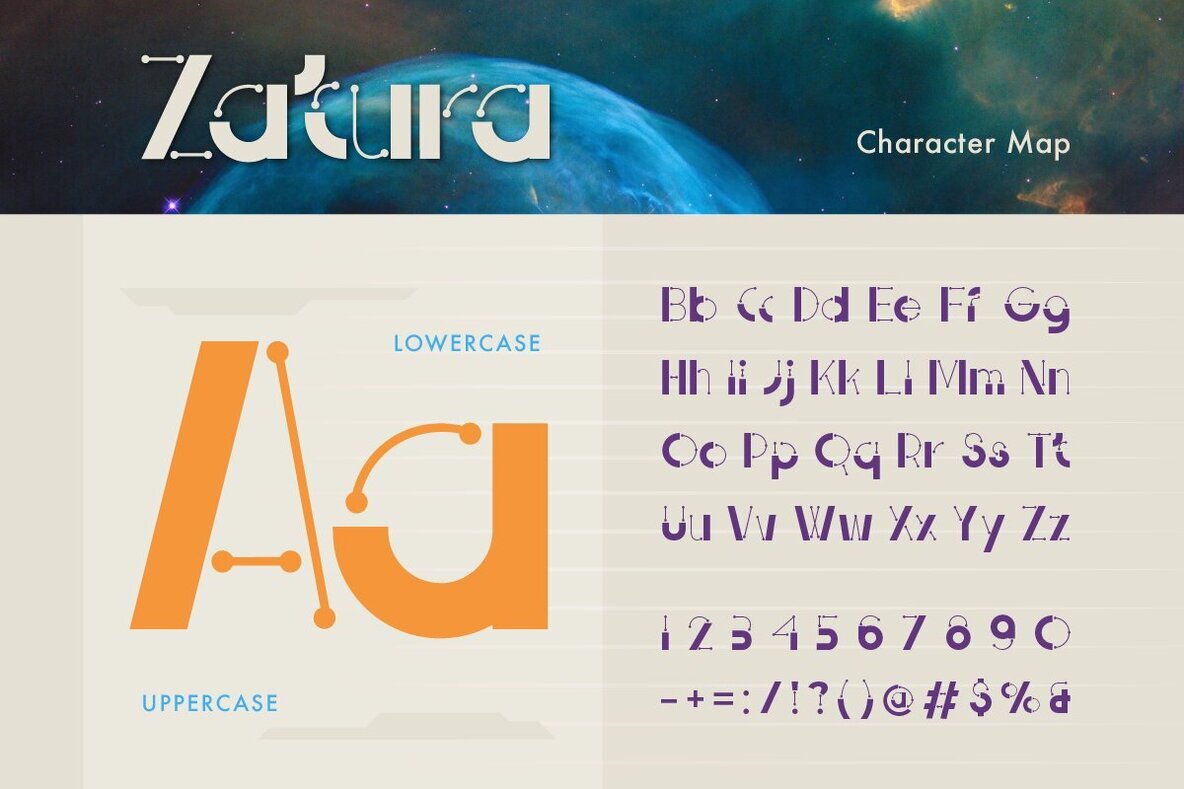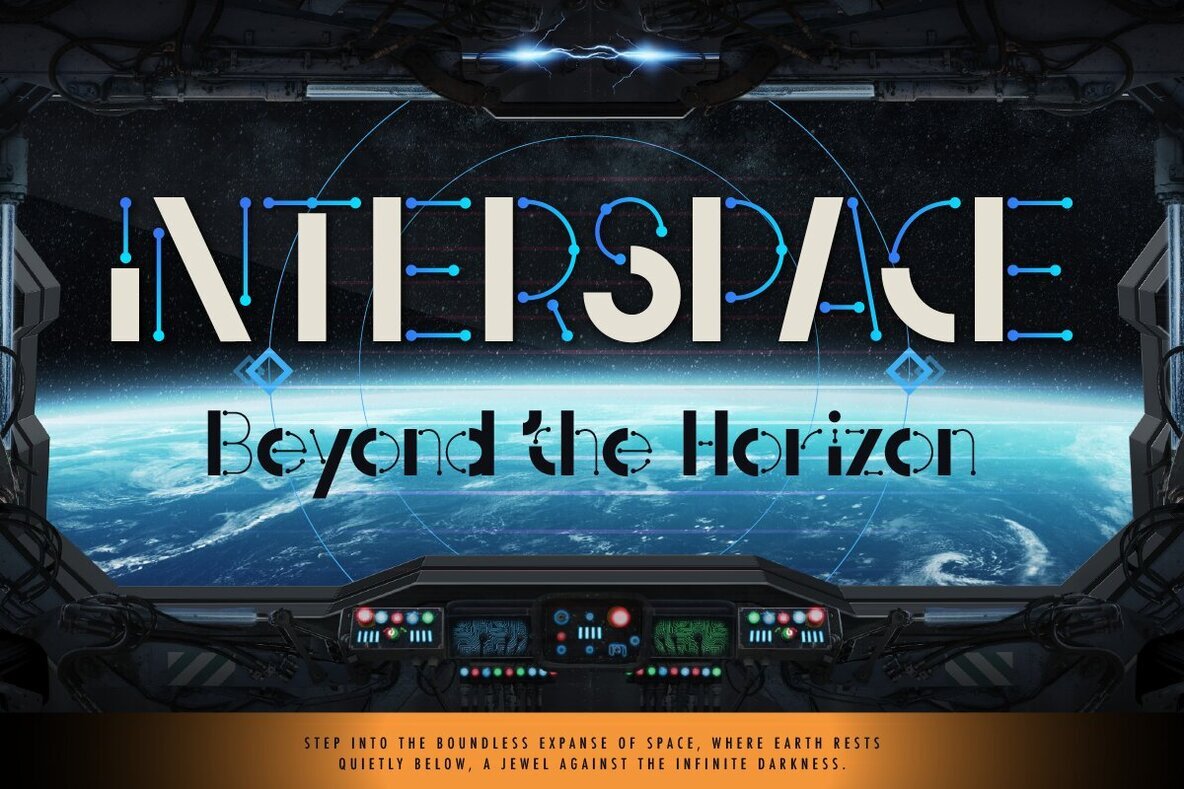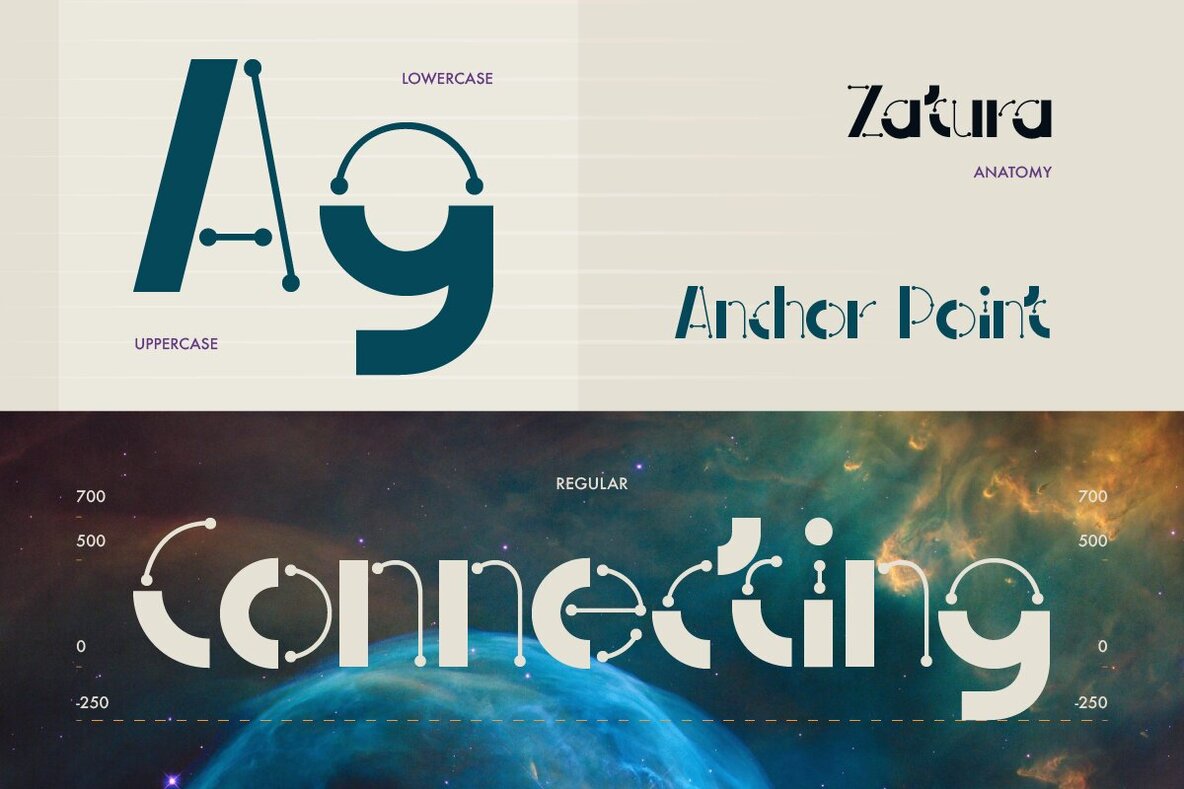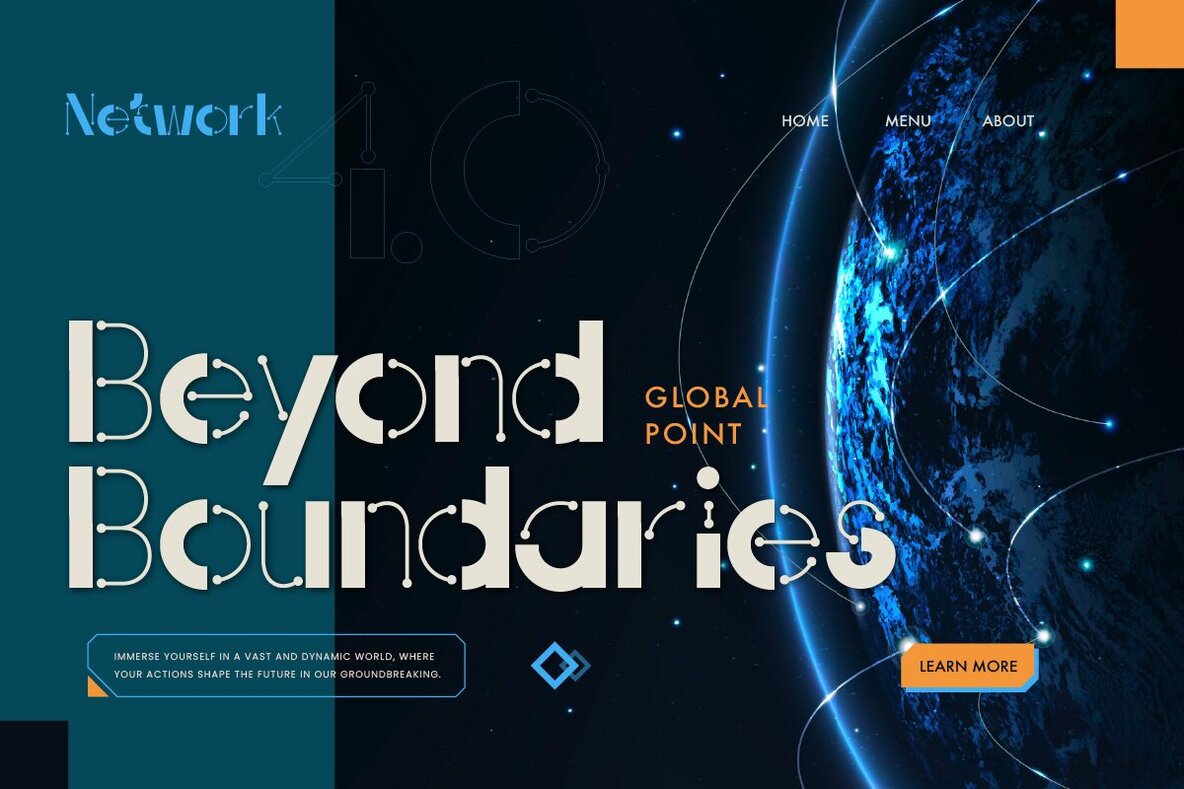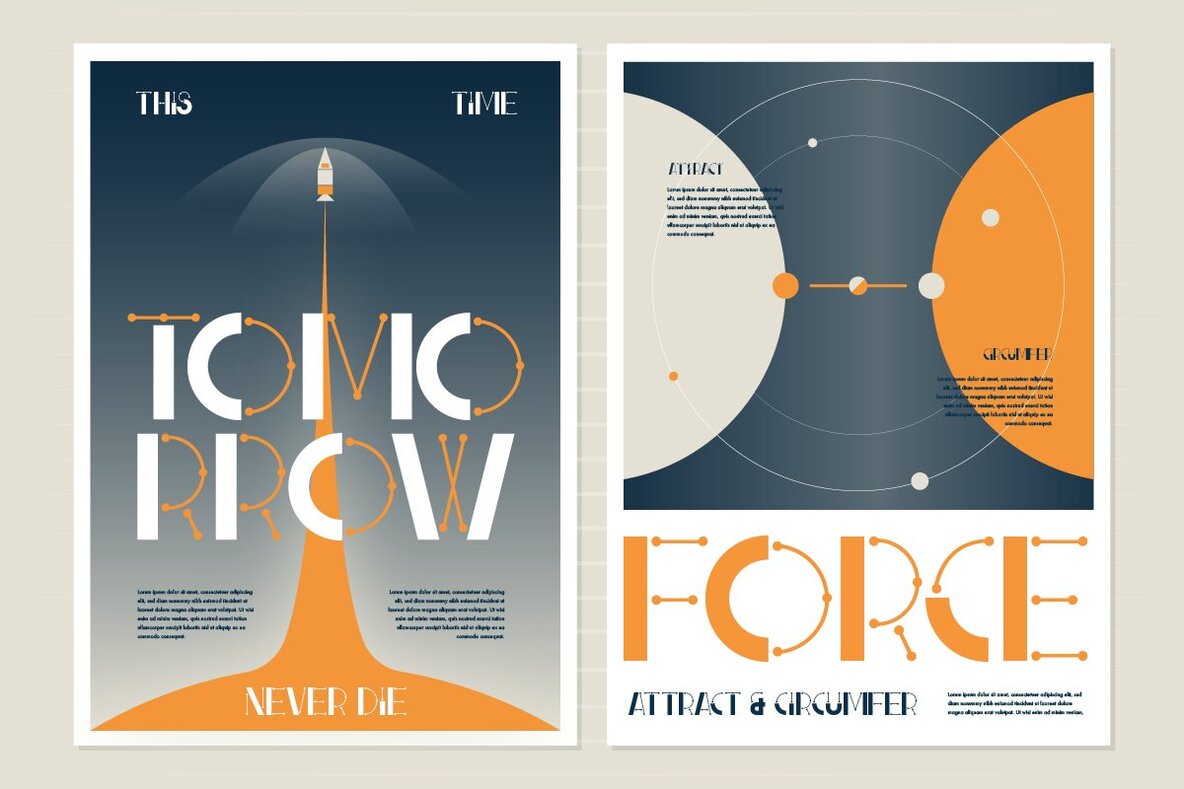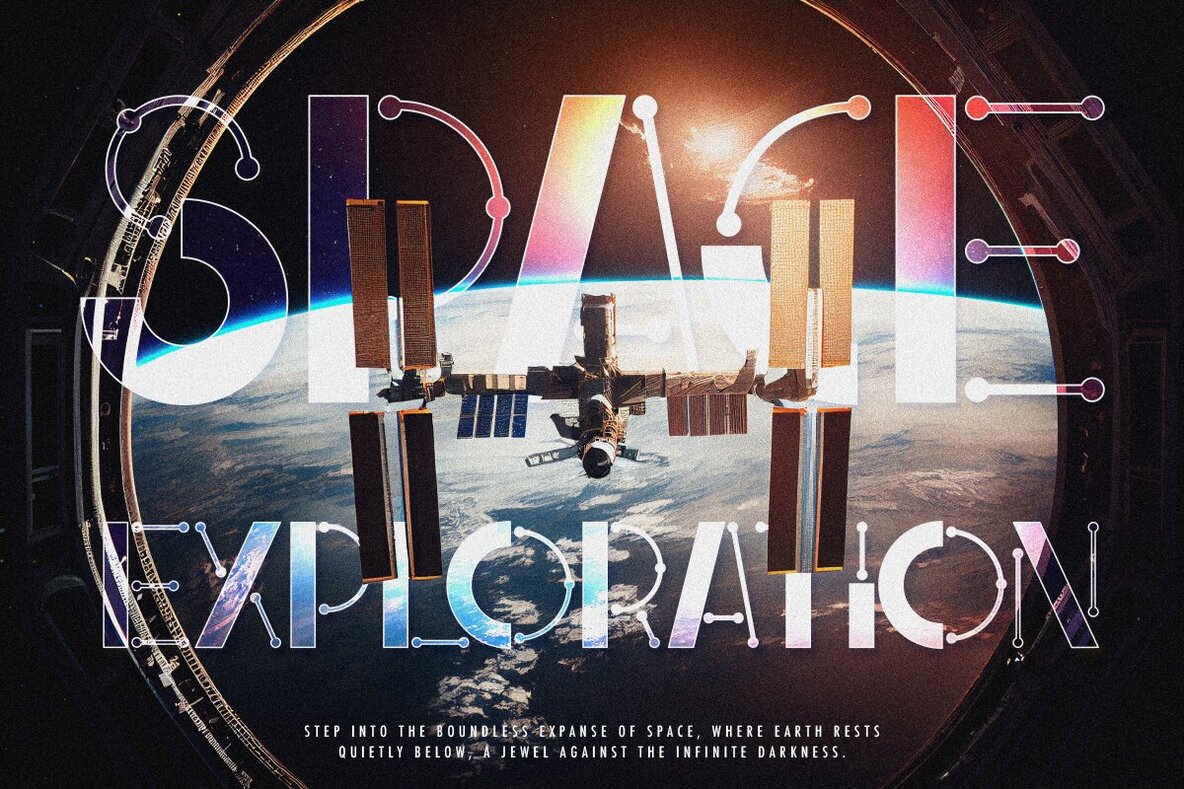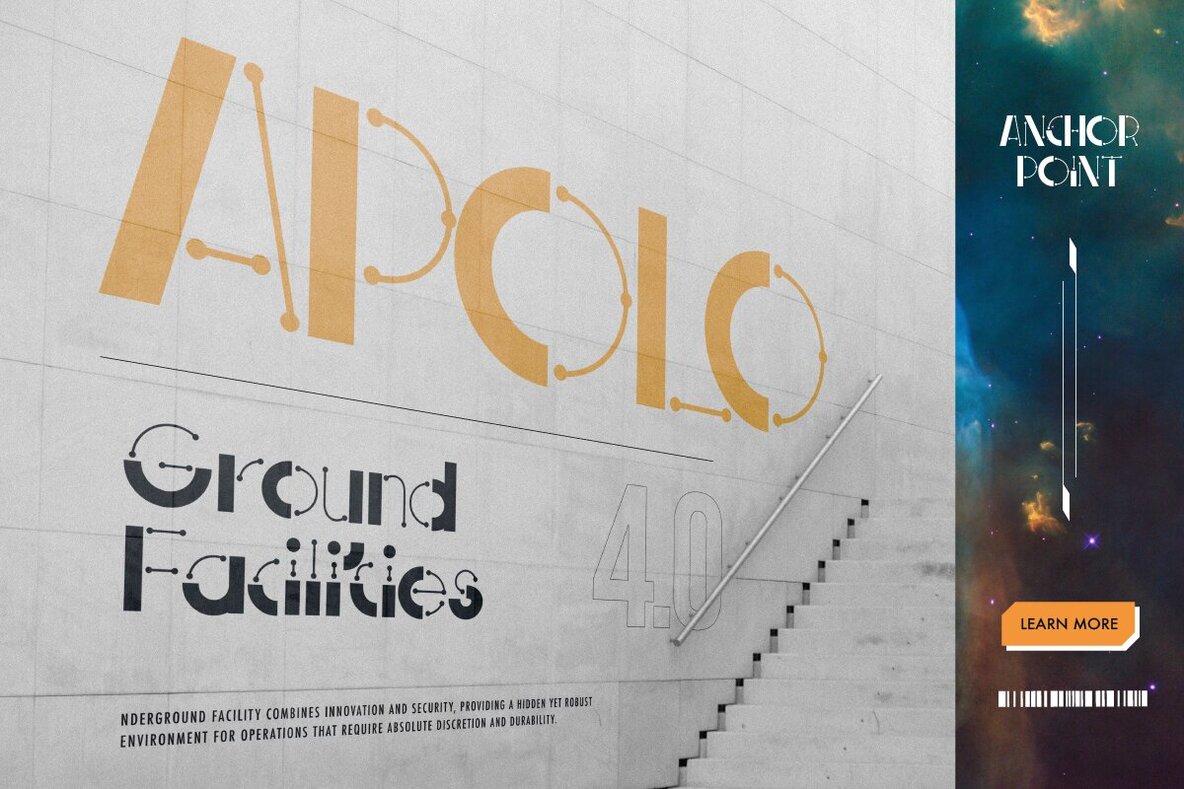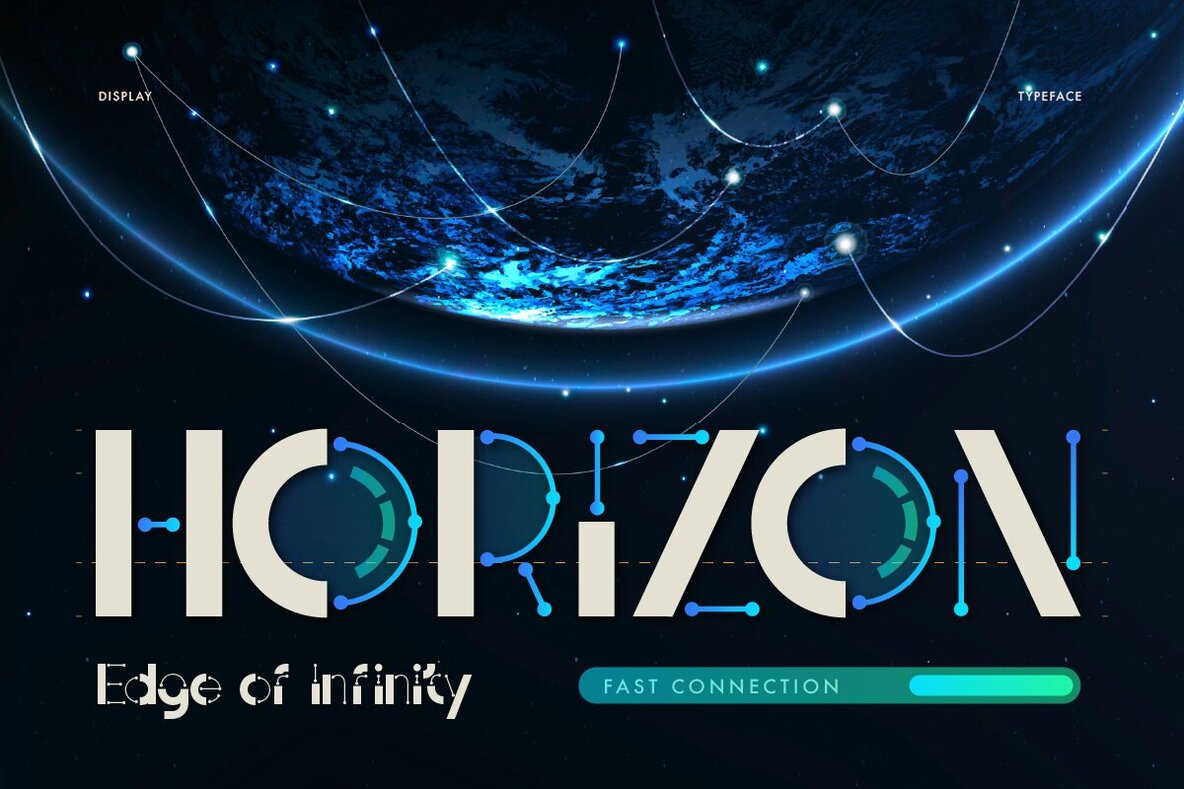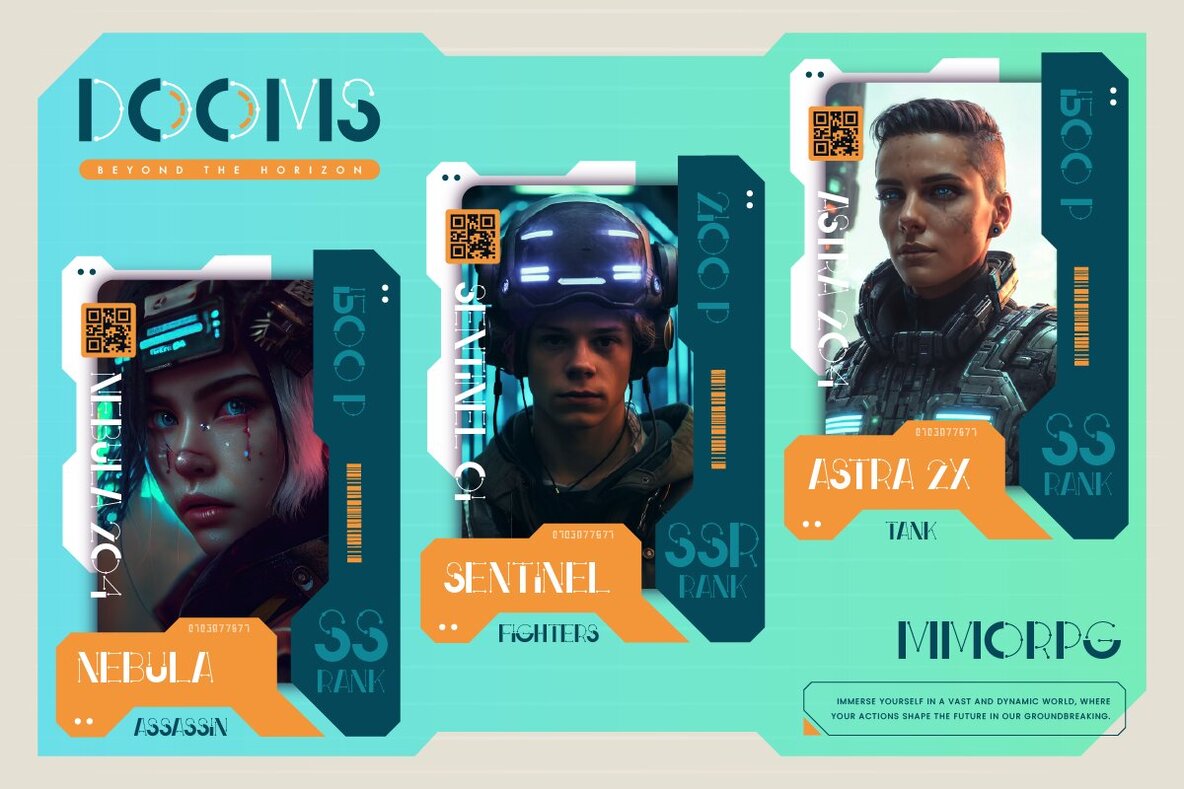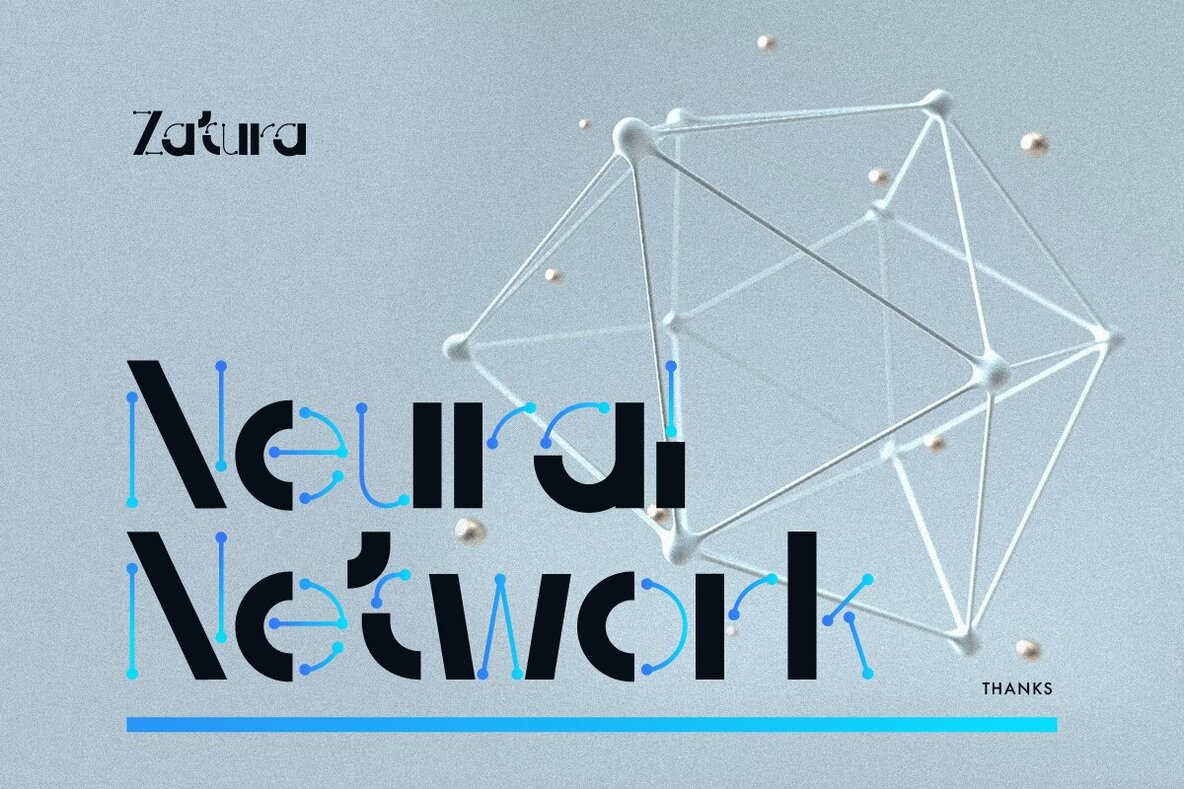
Zatura Font
Zatura Regular
Zatura is a distinct typeface that artfully combines straight lines with dots to create a dimensional and compelling look. This typeface encapsulates a digital and futuristic aesthetic, characterized by its geometric design. Zatura is ideal for applications in branding, logo design, and editorial projects, offering a balance of style and functionality. Its unique design ensures clarity and balance, making it both visually appealing and legible.
The font masterfully merges precision with creativity, making it suitable for dynamic typographic compositions that aim to leave a lasting impression. Zatura includes a comprehensive character set that features uppercase and lowercase letters, numbers, punctuation, and multilingual support. This versatility makes it a valuable asset for designers looking to explore innovative and striking typographic solutions.